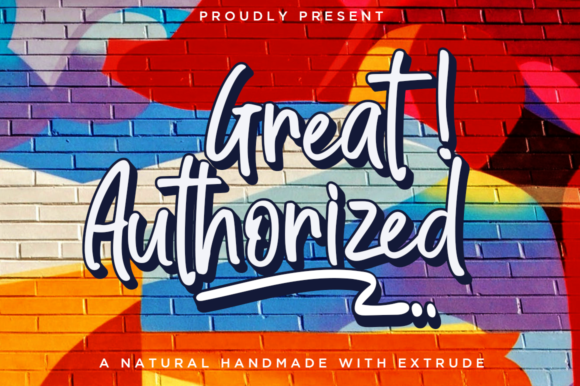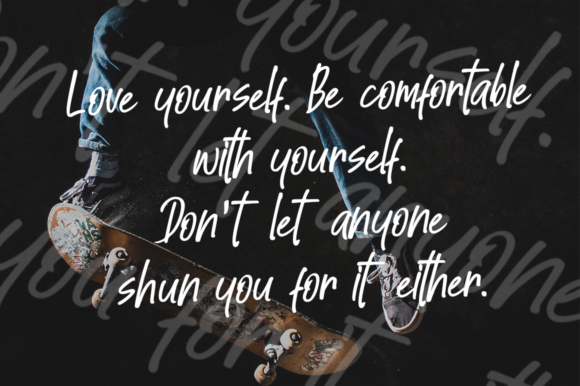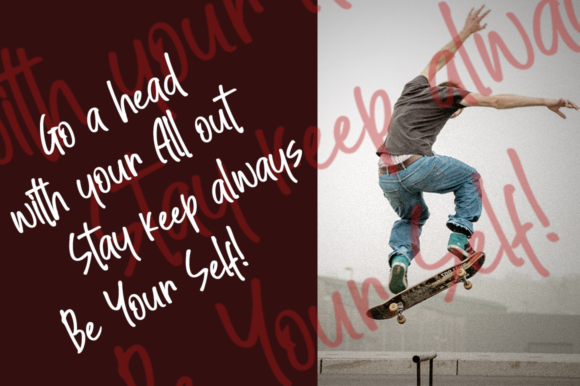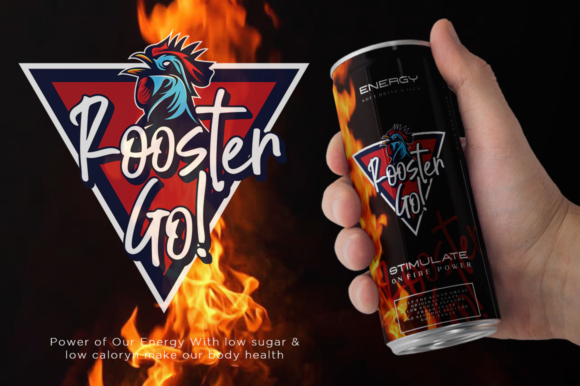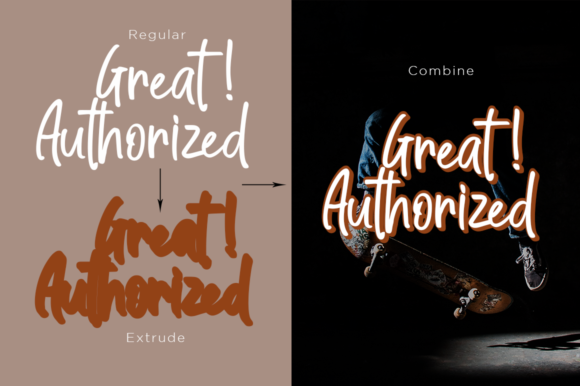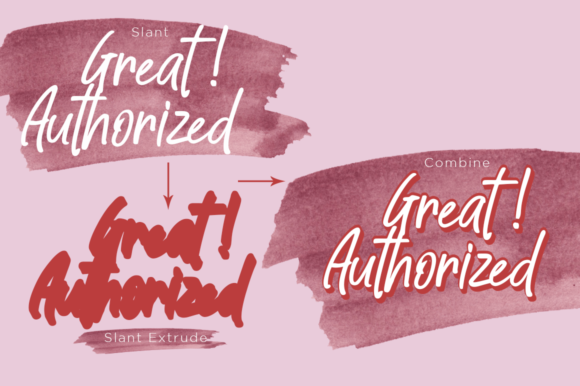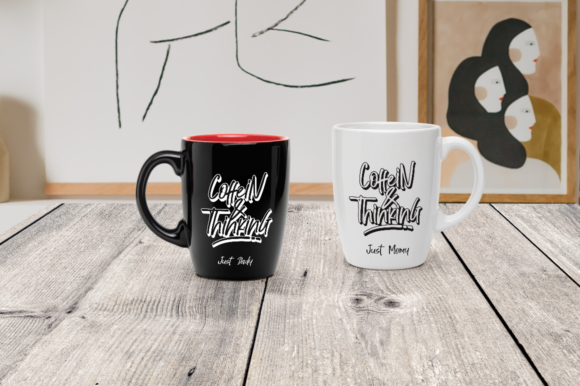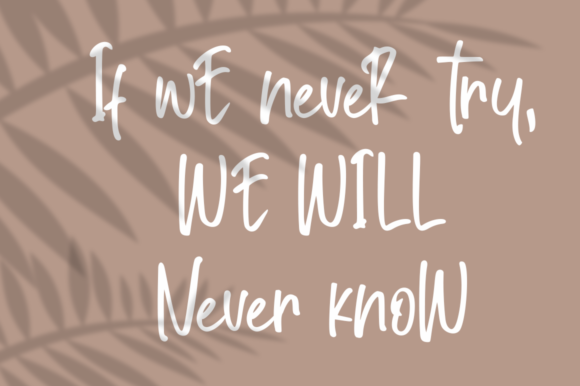
Great Authorized Font
About Great Authorized Font
Great Authorized is a natural and bold handwritten font with extraordinary elegance. It will help you create unique designs in an instant.